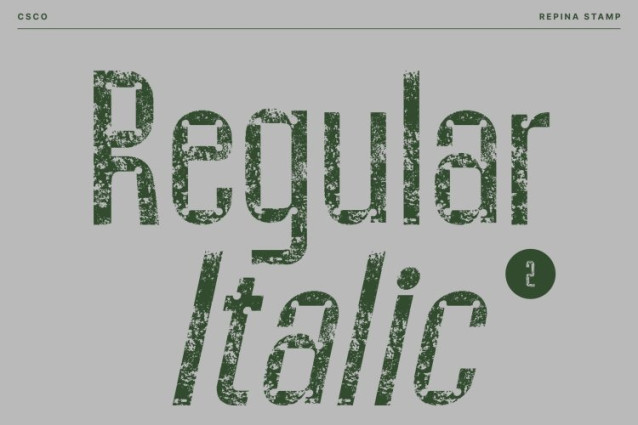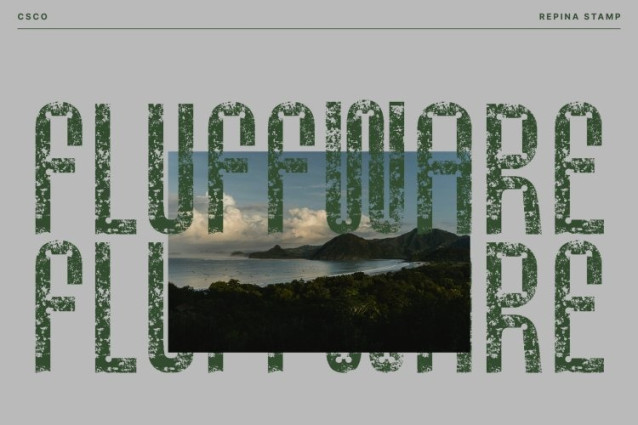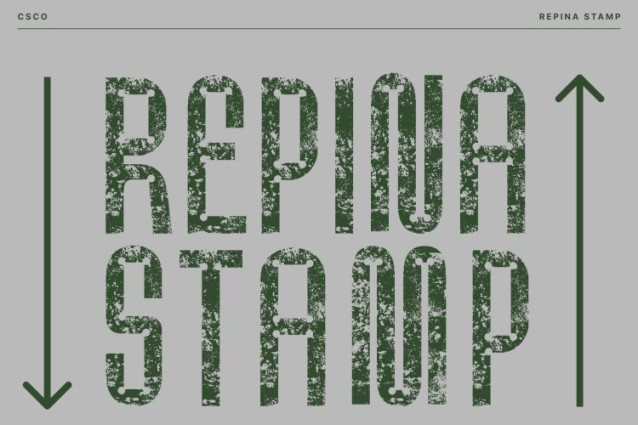
Repina Stamp Font
Repina Stamp Font This is a condensed sans serif font crafted to deliver powerful visual impact even in limited spaces. Its narrow width allows designers to fit more text into tight layouts without sacrificing clarity or presence. Whether you’re working on bold headlines, vertical compositions, or compact poster designs, Repina Stamp ensures every word stands out with strong, commanding emphasis.
Inktrap Details for Modern Character and Precision
Designed with distinctive inktrap features, blends modern typographic engineering with a striking contemporary look. The inktraps add sharpness, personality, and visual depth making each character feel intentional and refined.
Stamp Texture for a Unique and Expressive Finish
Adding to its modern structure, this font incorporates a stamped texture that gives the font a handcrafted, rugged, and expressive quality. This textured layer enhances the otherwise clean geometric shapes, introducing visual warmth and artistic flair. The result is a perfect fusion of precision and individuality ideal for designs that need both strength and personality.
Perfect for Headlines, Posters, and Bold Branding
This font thrives in display settings where impact matters most. From posters and advertising to branding systems, packaging, and editorial design, it delivers a strong, unmistakable identity. Its condensed shape, inktrap character, and textured finish work together to create a font that feels modern, energetic, and distinctly unique.